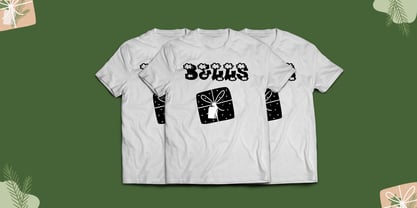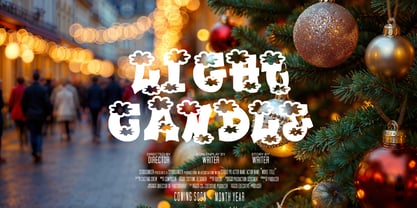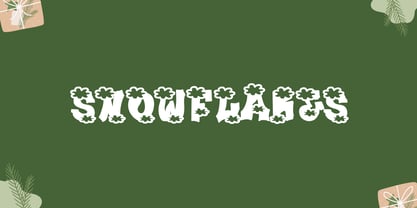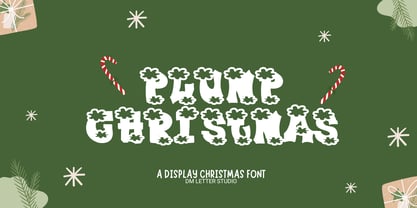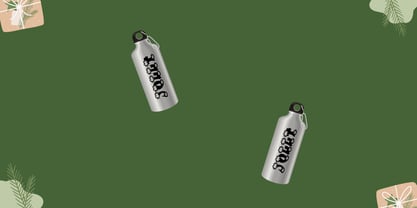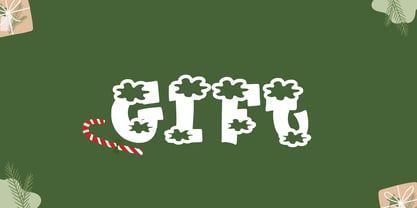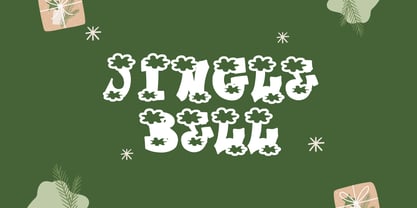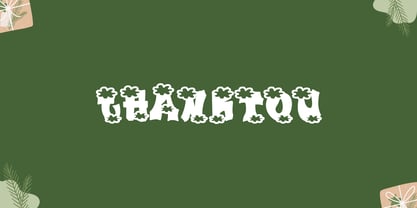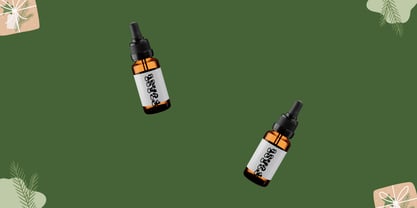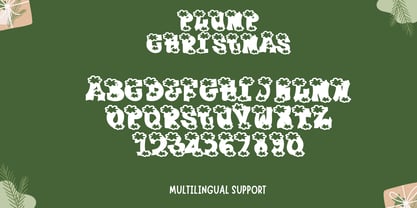
Meet Plump Christmas, the Display Font
Plump Christmas is a chunky, rounded display font made for cheerful holiday designs. It turns simple words into bold, cozy headlines that feel festive, friendly, and instantly seasonal. The shapes are thick yet balanced, so your text stays clear at any size. Because counters stay open, small tags and stickers remain readable while big titles look extra joyful. Use it for Christmas cards, gift tags, sticker packs, packaging, mugs, sweaters, social posts, and winter sale banners. As a result, your designs feel warm, fun, and ready to sell.
Why Plump Christmas sells
Fast layouts with the Plump Christmas font
Start with a short headline in Plump Christmas and keep it punchy. After that, add supporting text in a neat font for dates, prices, or product names. Because the letters are thick and rounded, give them breathing room with wider margins and a little extra line spacing. In addition, pair it with simple icons like stars, candy canes, ornaments, or snow doodles for instant holiday charm. Finally, save palette pairs like evergreen & cream, red & ivory, cocoa & gold, or navy & silver to repeat across your listings.
Creative uses and quick wins
Christmas cards, gift tags, and wrapping labels
Sticker packs, tumbler decals, and packaging seals
Holiday merch slogans for tees, mugs, and totes
Winter promos, sale banners, reels covers, and quote posts
What you get
Uppercase, lowercase, numbers, punctuation
Bold rounded display letterforms for headlines
Curves tuned for clean print and high-res exports
Design tips for Plump Christmas
Plump Christmas